Unpopular Opinions & the Nazis?!
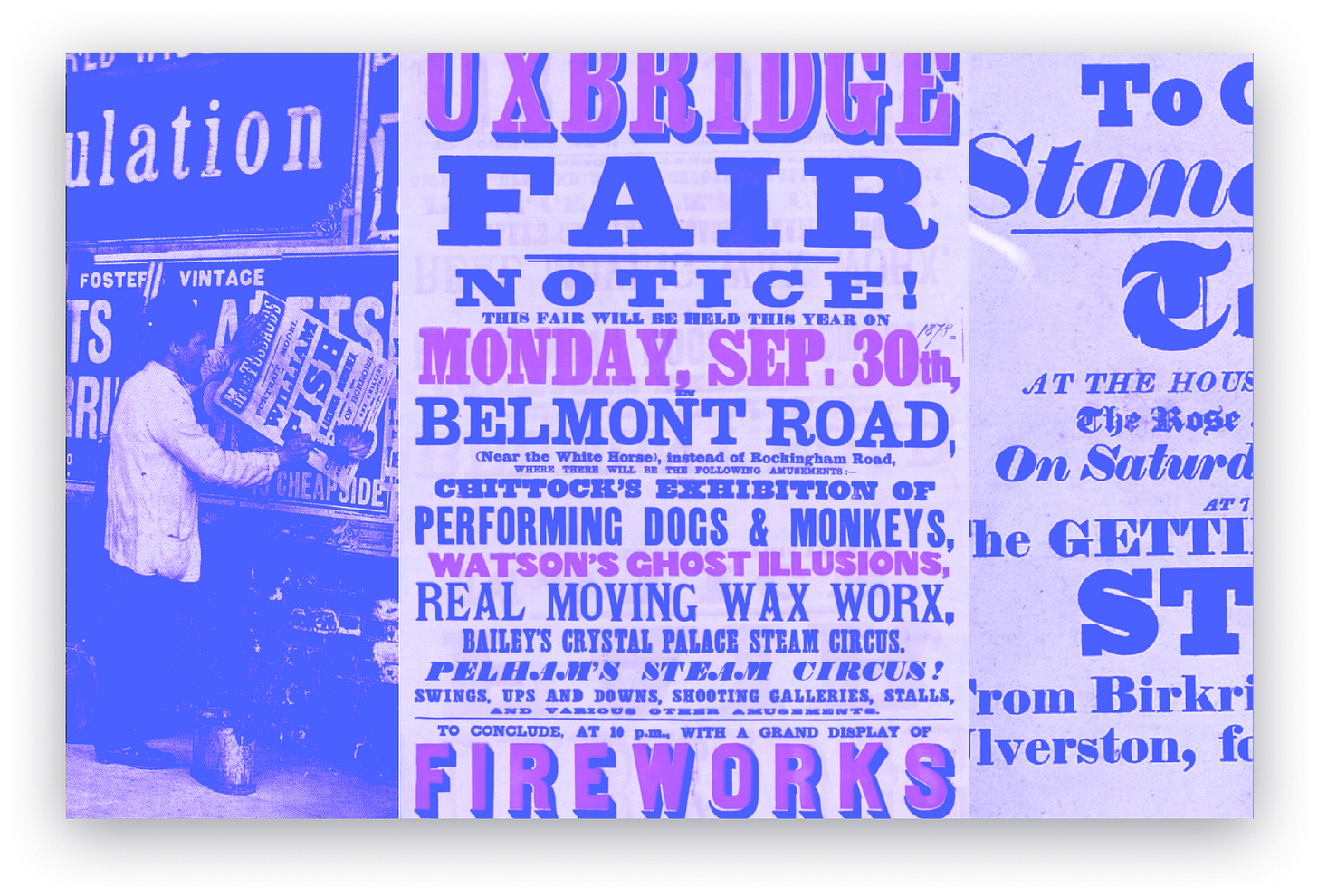
Today in Unpopular Opinion
THE VALUE OF A MULTI-TYPEFACE DESIGN. One of the women I look upto and whose work I really admire is Bethany Heck, Head of Design at Medium and generally bomb.com designer. Bethany writes in this insightful article about the value of using more than just a couple of typefaces in your designs.
Every Type 101 and font-pairing guide will tell you thisβ "Use fewer families in any given design, less is more." and as a rule of thumb, so will I. But Bethany presents a counter argument and speaks to the value of eclectic type systems, and how you can structure your projects in ways that will allow you to use more typefaces together effectively.
π Face of the Week π
BLUU SUUPERSTAR. Bluu Suuperstar is a brutalist serif typeface by Black Foundry. It features very prominent triangular-wedges for serifs and terminals. In certain places, strokes have been βbroken,β but any oddities within the design are still firmly within the canon of serif typography. The familyβs lighter fonts are optimised to support long passages of text in applications intended to encourage immersive reading, while the heavier styles are best used in large display sizes.
π΅ The font that escaped the Nazis! π΅
FUTURA. The Futura typeface is famous. Futura was created by Paul Renner in 1920s Germany, just as the Bauhaus movement was picking up steam. Though Renner wasn't Bauhaus, Futura had that flavor, which was part of its problem with the Nazis.
The newly powerful Nazis favoured the ornate Fraktur type style to modern Futura, and so excluded both the type and its creator. But somehow Futura had established itself as the international typeface of the future, its legacy was secured forever by somehow escaping association with the Nazis and Nazi Germany.